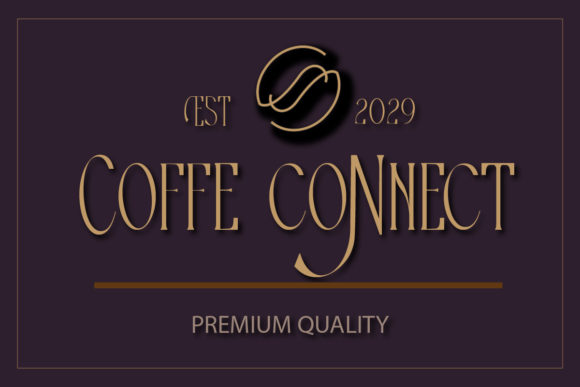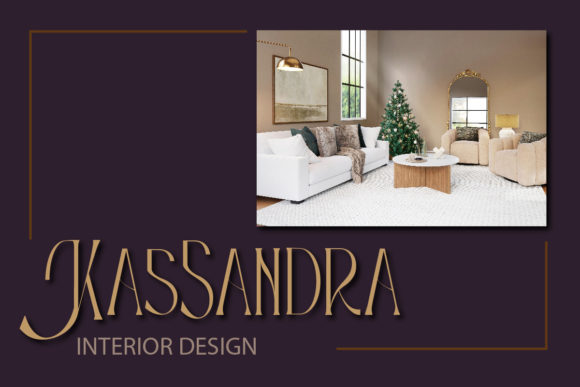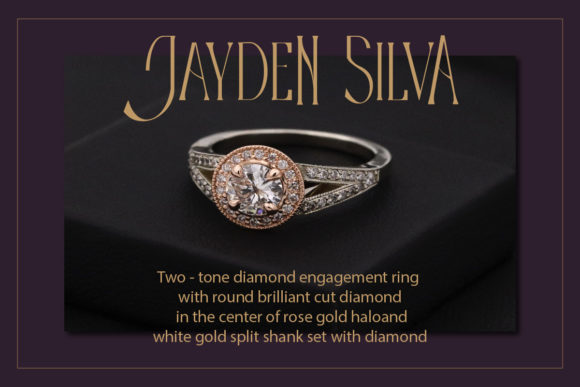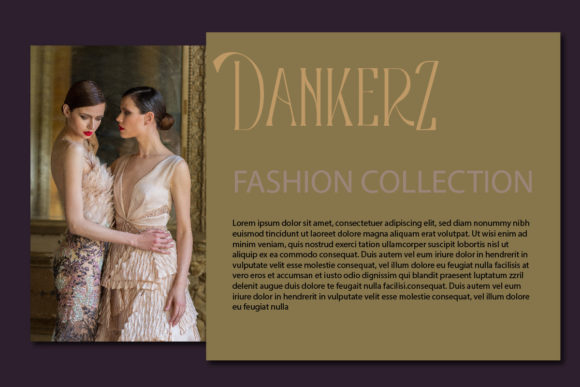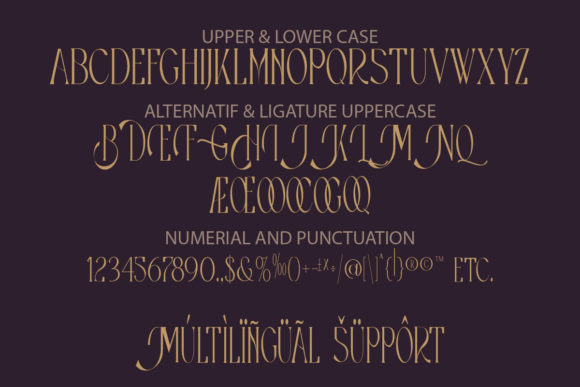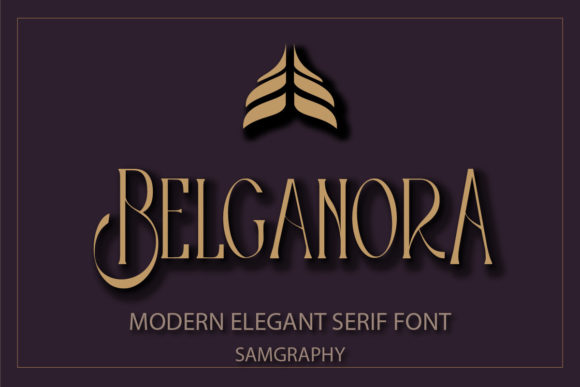
Introducing Belganora Font: Elevate Your Designs with Elegance and Style
In the world of typography, a font can make or break a design. For designers and crafters looking to add a touch of sophistication and modernity to their projects, Belganora Font is an excellent choice. This elegant and modern serif font is designed to make your designs stand out, whether you’re working on a logo, magazine headers, product packaging, branding projects, or simply adding a stylish text overlay to images or websites.
What Makes Belganora Font Special?
Belganora Font is not just another serif font. Its unique blend of classic elegance and modern style sets it apart from the rest. Here are some features that make Belganora a must-have for designers:
- Elegant and Modern Design: Belganora boasts a sleek and contemporary design that will add a touch of sophistication to any project.
- Special Alternative Letters: The font comes with special alternative letters, allowing designers to add a unique twist to their text and make it more visually appealing.
- Stylish Vibe: The overall vibe of Belganora is stylish and chic, making it perfect for designers who want to create high-end designs.
Belganora Font’s versatility makes it suitable for a wide range of design projects. Here are some of the ways you can use Belganora to elevate your designs:
- Logo Design: Create a lasting impression with a logo that exudes elegance and sophistication. Belganora’s unique design makes it perfect for logos that need to stand out.
- Magazine Headers: Add a touch of class to your magazine headers with Belganora’s stylish and modern design.
- Product Packaging: Make your product packaging more appealing with Belganora’s elegant font. It’s perfect for creating a high-end look that will attract customers.
- Branding Projects: Consistency is key in branding. Use Belganora across your branding materials to create a cohesive and sophisticated look.
- Clothing: Whether you’re designing apparel for a fashion brand or creating custom clothing for a client, Belganora’s stylish vibe makes it a great choice.
- Text Overlay: Add a professional touch to your images and websites with Belganora’s elegant text overlay.
Why Choose Belganora Font?
With so many fonts available, why should you choose Belganora? Here are a few reasons:
- Unique Design: Belganora’s design is unique and eye-catching, making it perfect for designers who want to create something different.
- High Versatility: The font’s versatility means you can use it for a wide range of projects, from logos to text overlays.
- Easy to Read: Despite its elegant design, Belganora is easy to read, making it suitable for both headings and body text.
How to Use Belganora Font Effectively
To get the most out of Belganora Font, here are some tips on how to use it effectively:
- Pair it with Other Fonts: Experiment with pairing Belganora with other fonts to create a unique and visually appealing design.
- Use it for Headings: Belganora’s elegant design makes it perfect for headings. Use it to create eye-catching titles that draw attention.
- Adjust the Size and Color: Don’t be afraid to experiment with different sizes and colors to find the perfect combination for your design.
Belganora Font is a powerful tool for designers and crafters looking to add a touch of elegance and modernity to their projects. With its unique design, special alternative letters, and stylish vibe, Belganora is perfect for a wide range of design projects. Whether you’re working on a logo, magazine headers, product packaging, or simply adding a stylish text overlay to images or websites, Belganora is an excellent choice. So why wait? Download Belganora Font today and elevate your designs to the next level.